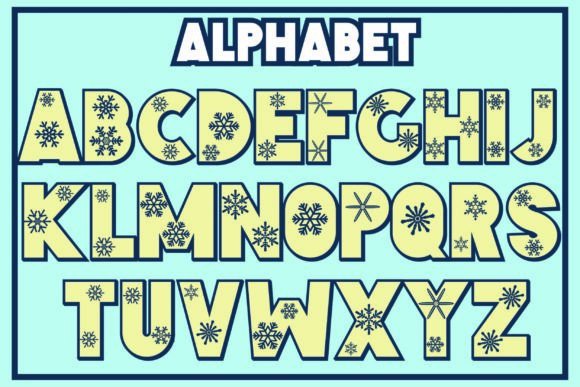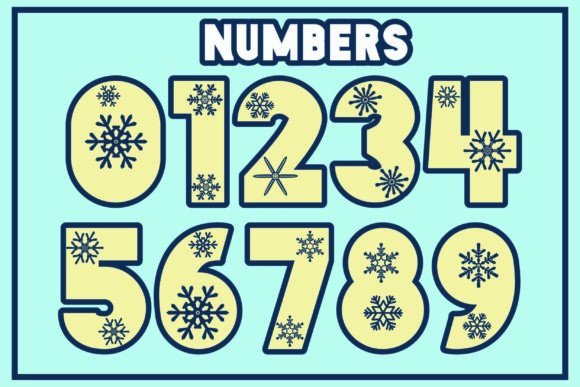
Introduction to Snow Flakes Font
Snow Flakes is a cool and unique decorative font featuring characters decorated with snowflakes.
Whether you’re using it for crafting, digital designing, presentations or greeting cards making, it’s perfect .
Why Choose Snow Flakes Font?
Snow Flakes Font offers exceptional quality and versatility, making it a valuable addition to your design toolkit. Whether you’re creating for personal projects or commercial use, Snow Flakes Font delivers professional results.